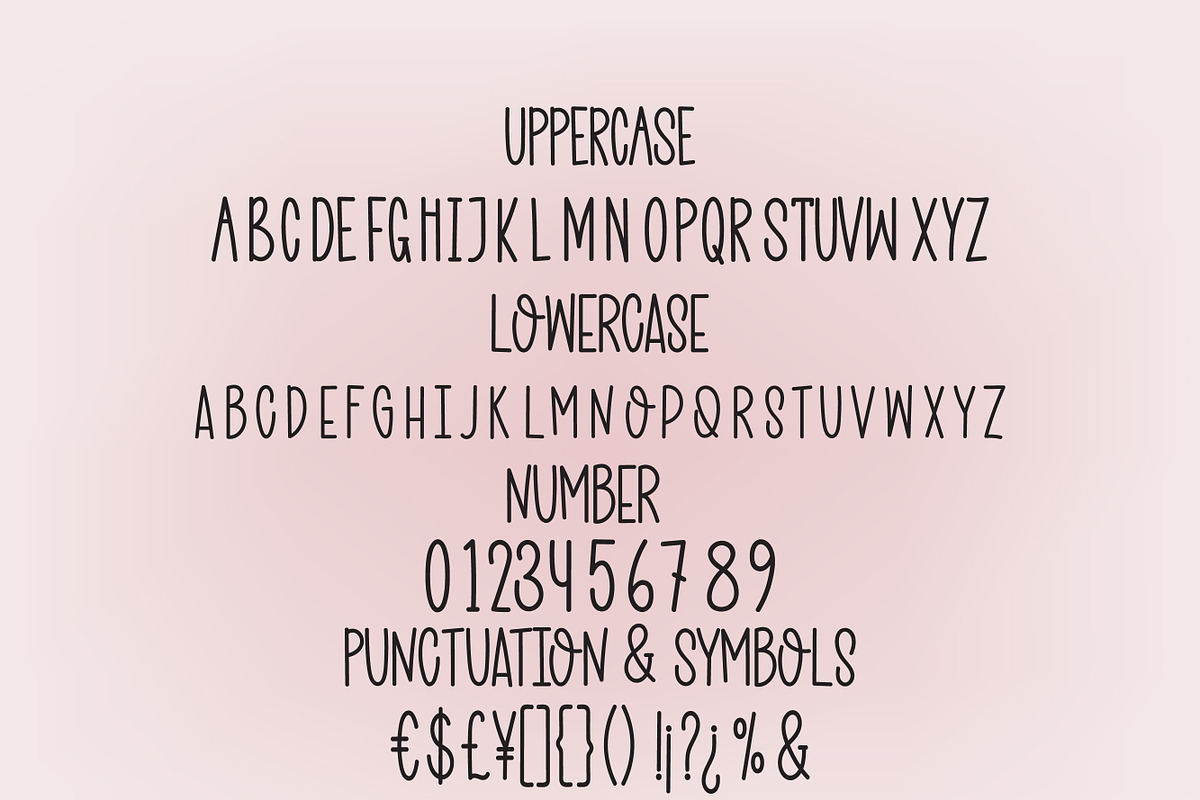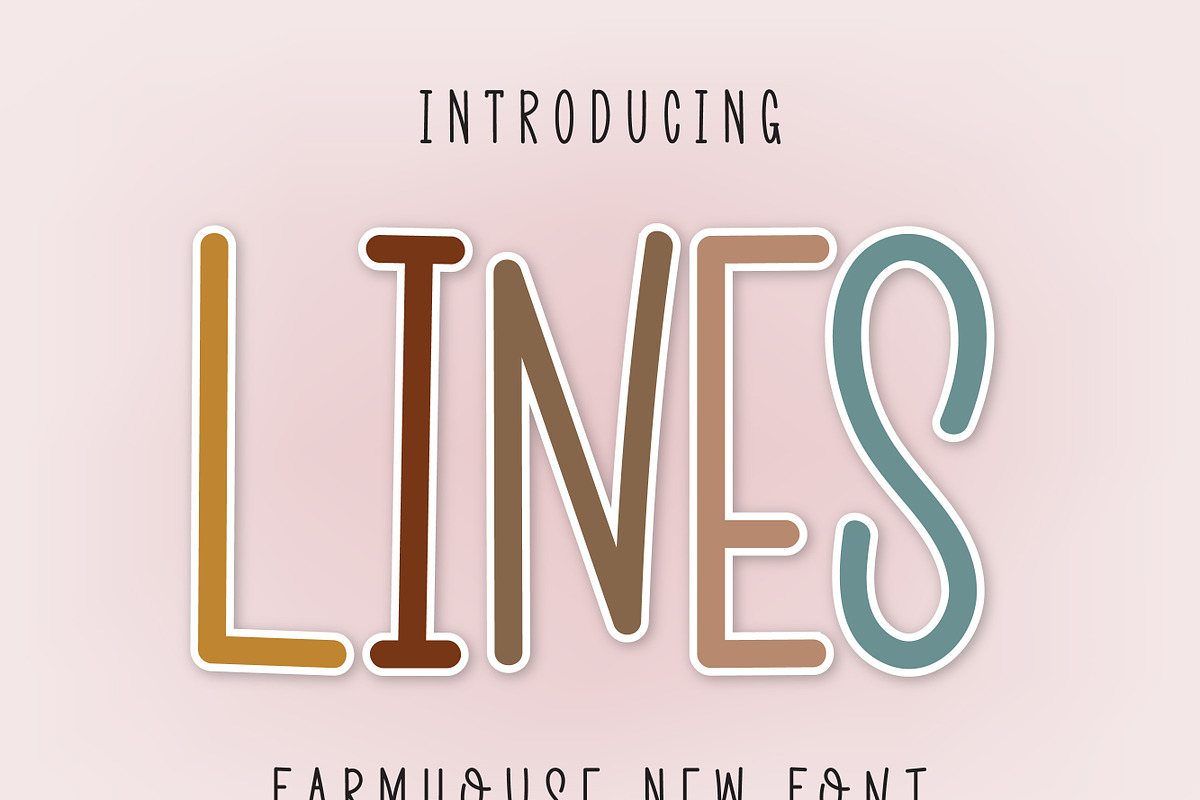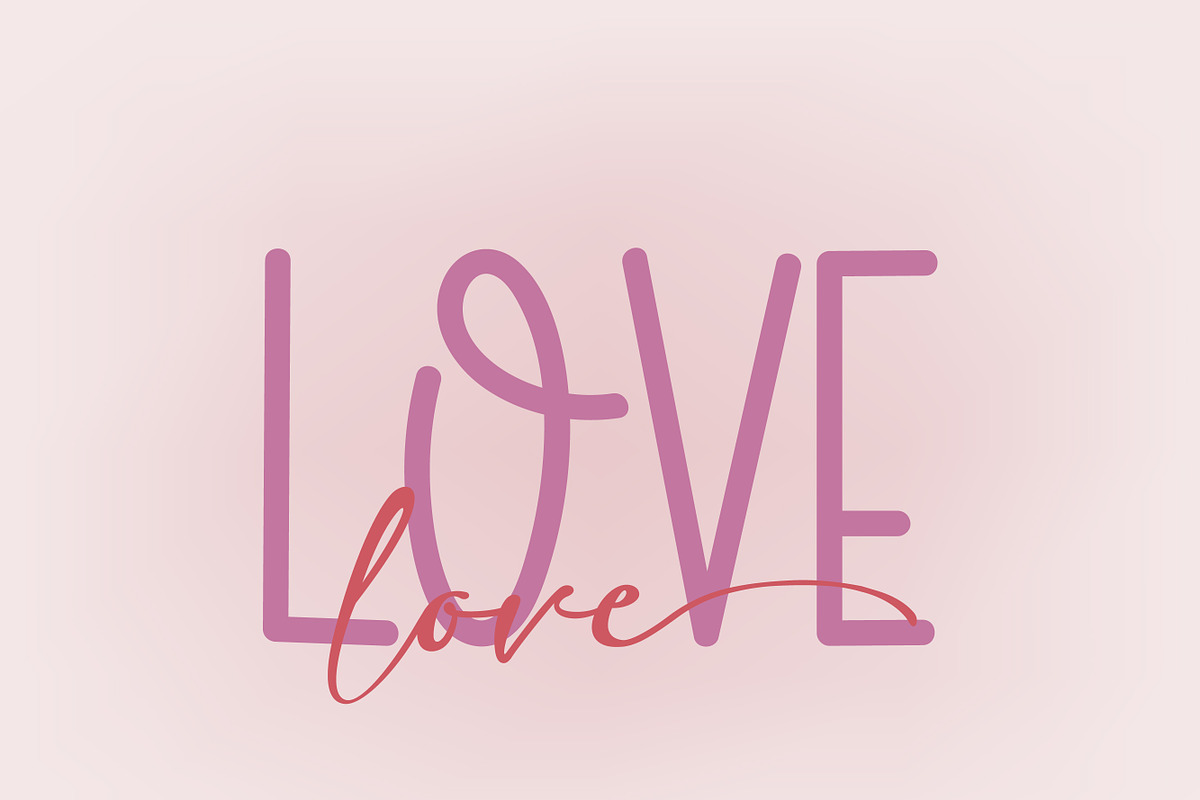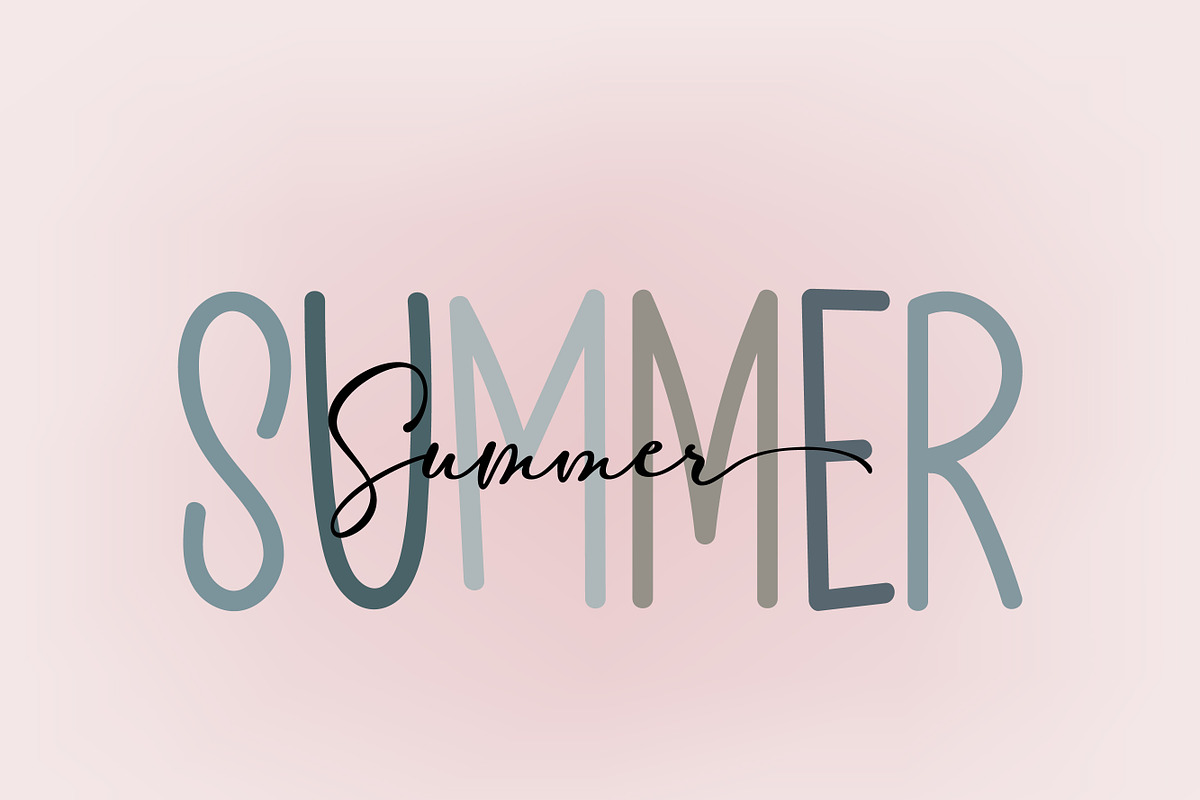
Lines Handwritten and playful design
Lines is a sweet and friendly handwritten font. Its natural and unique style makes it incredibly fitting to a large pool of designs. The only limit is your imagination!